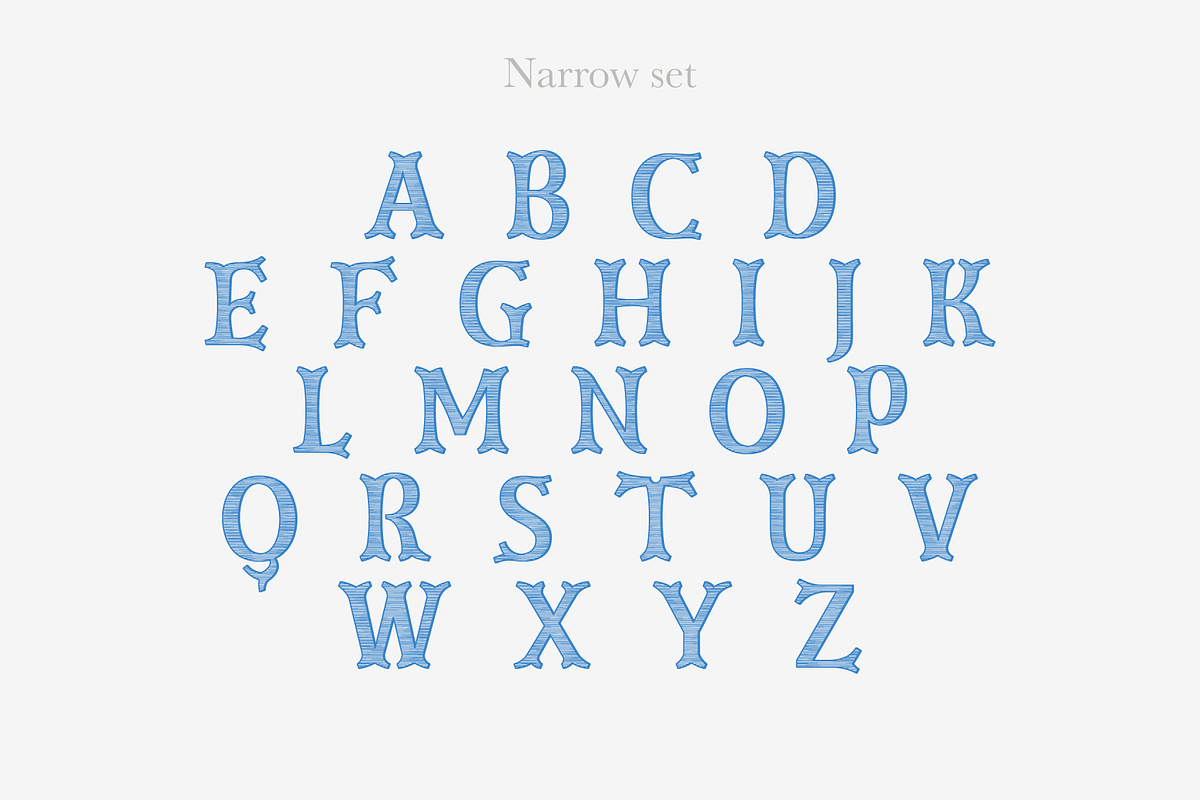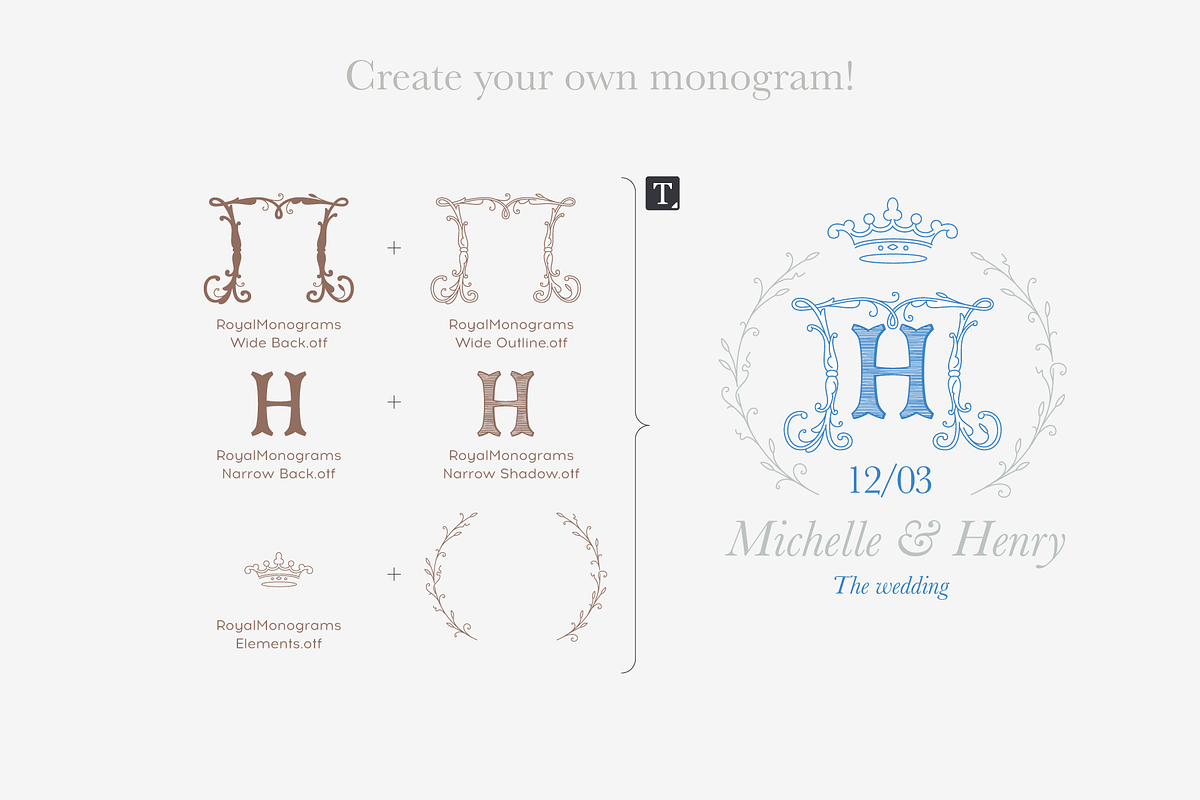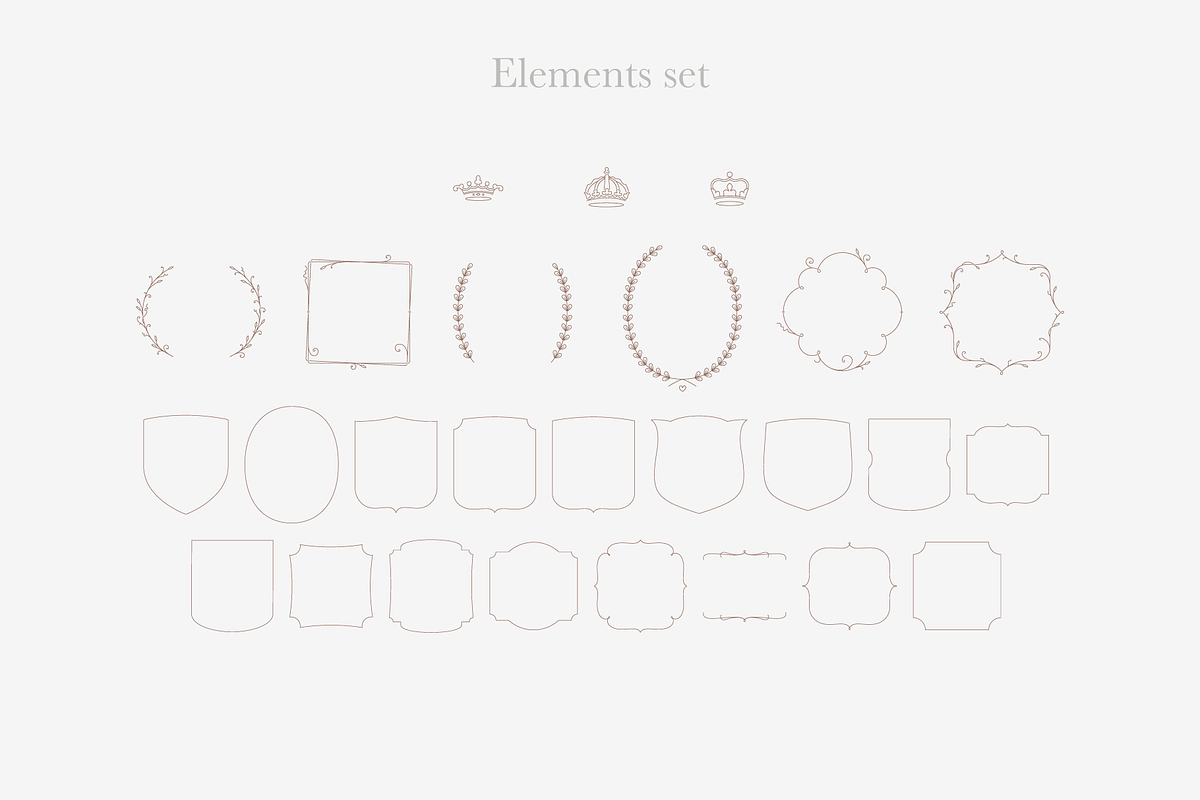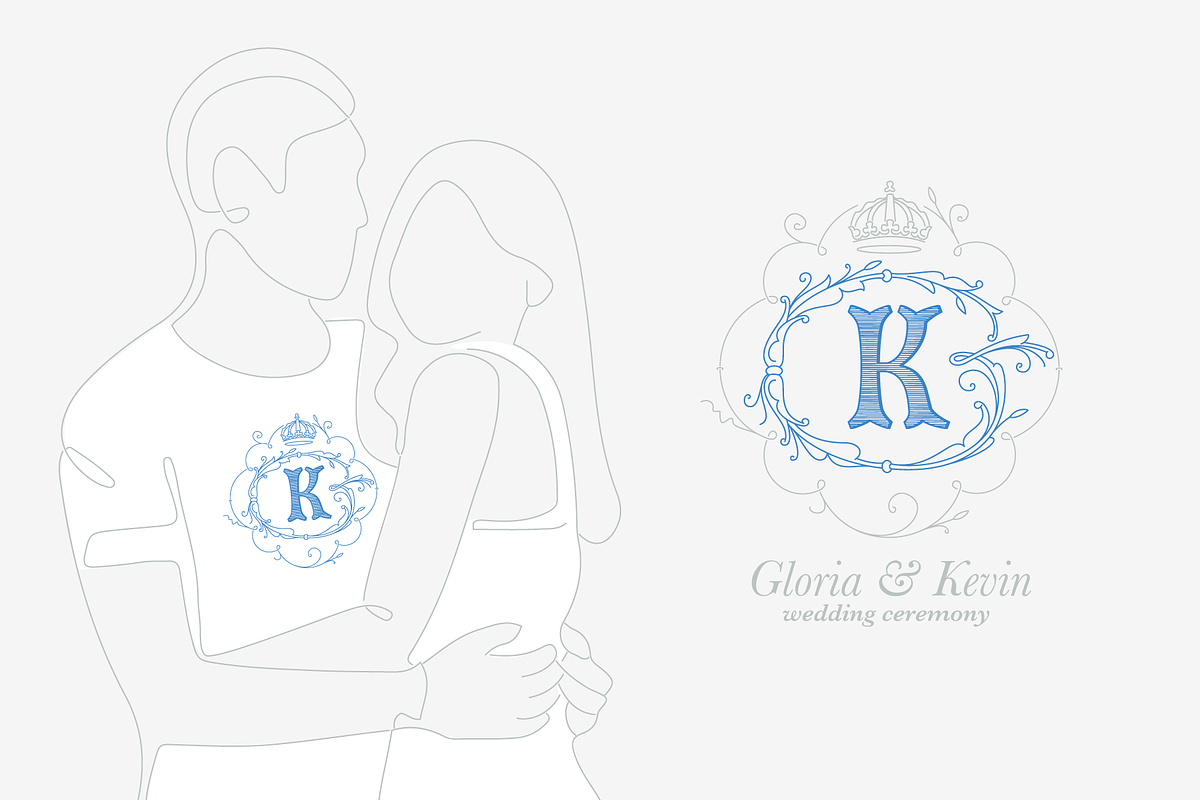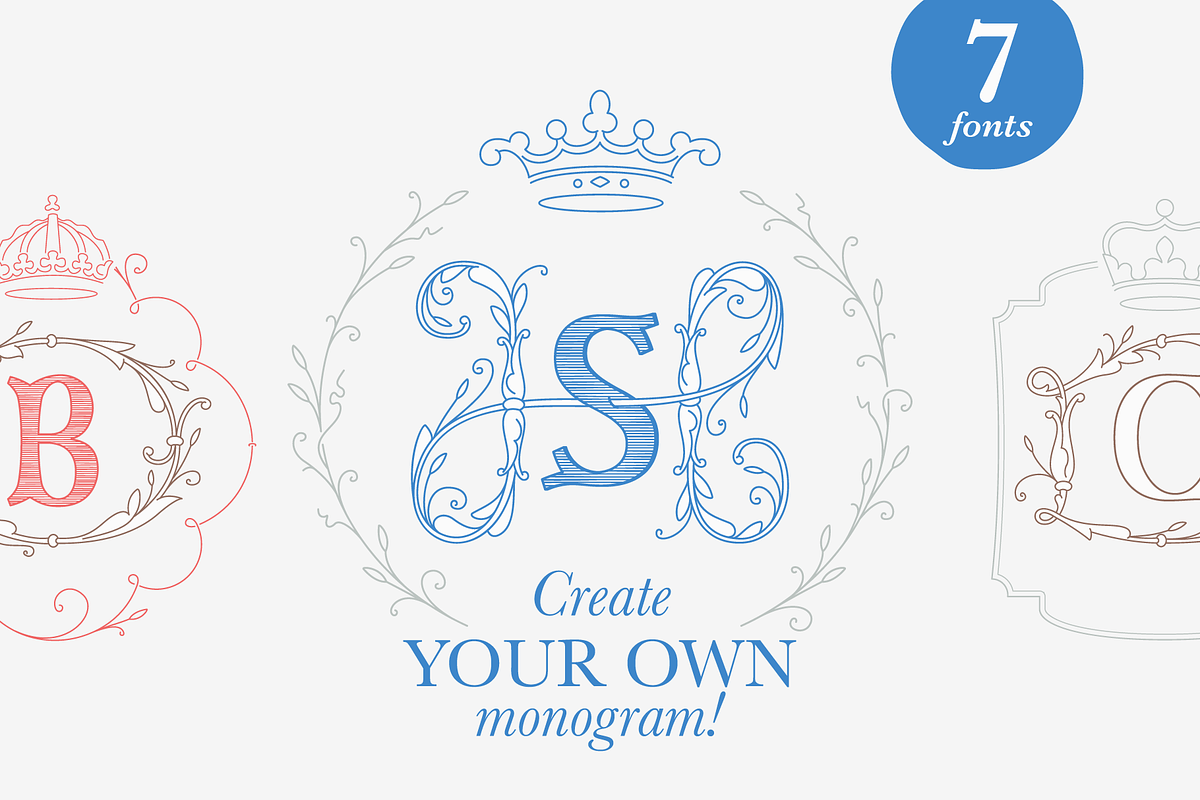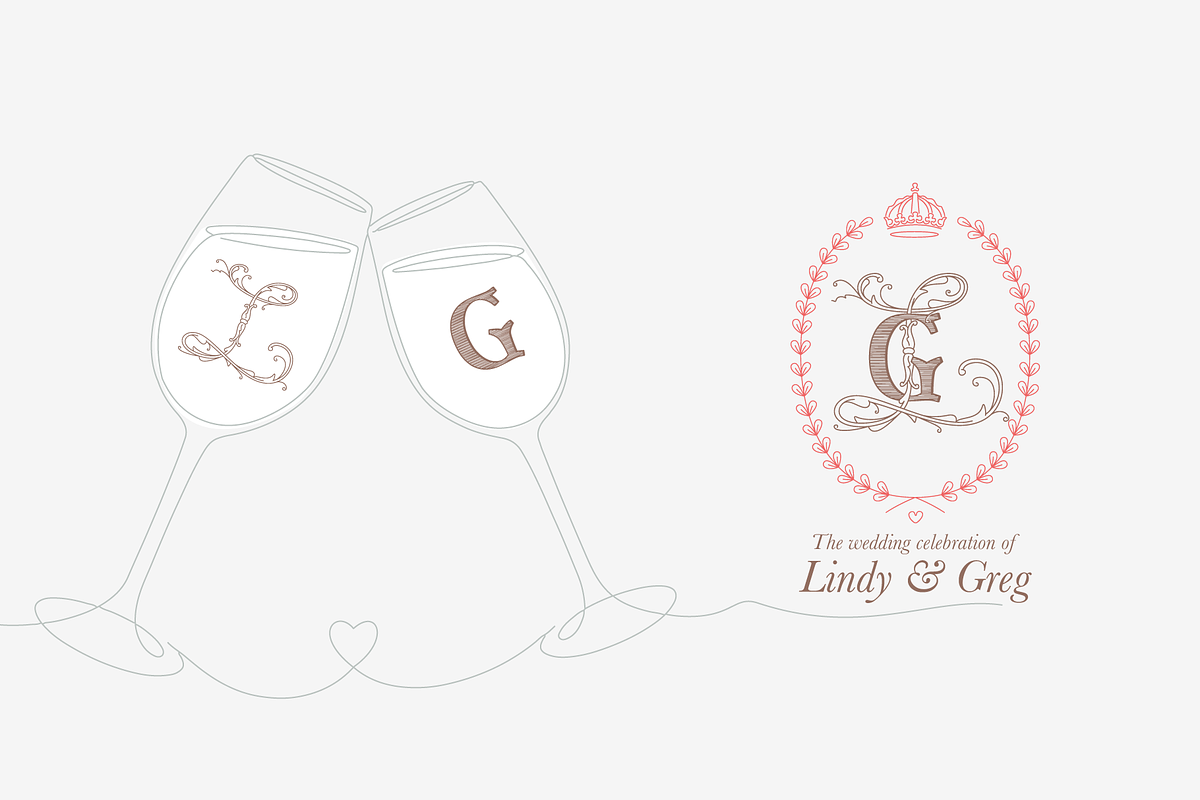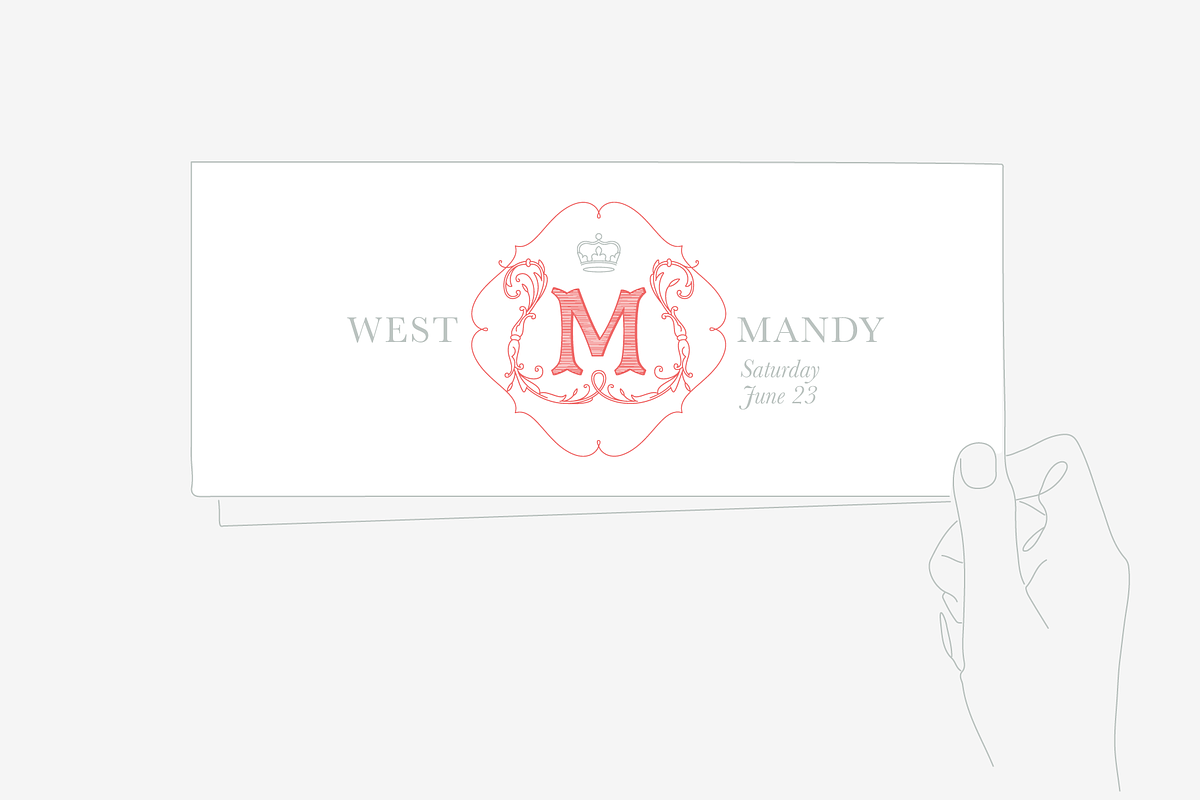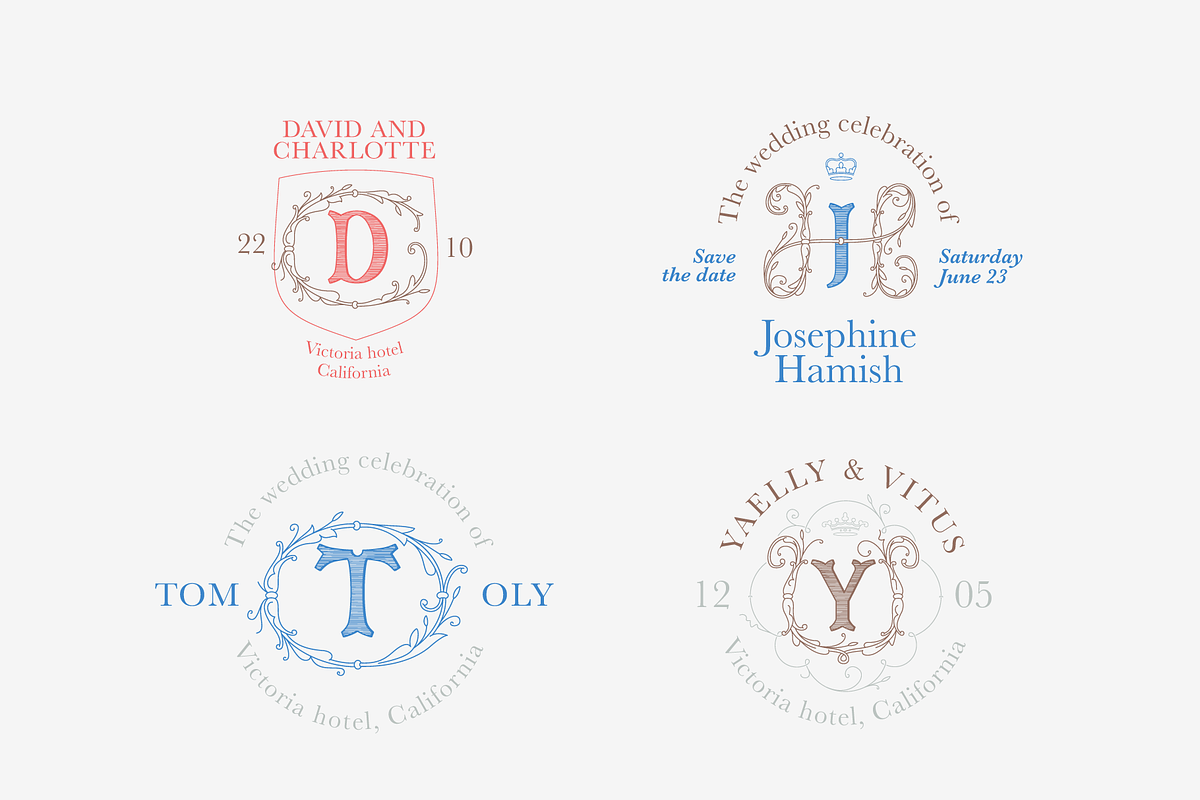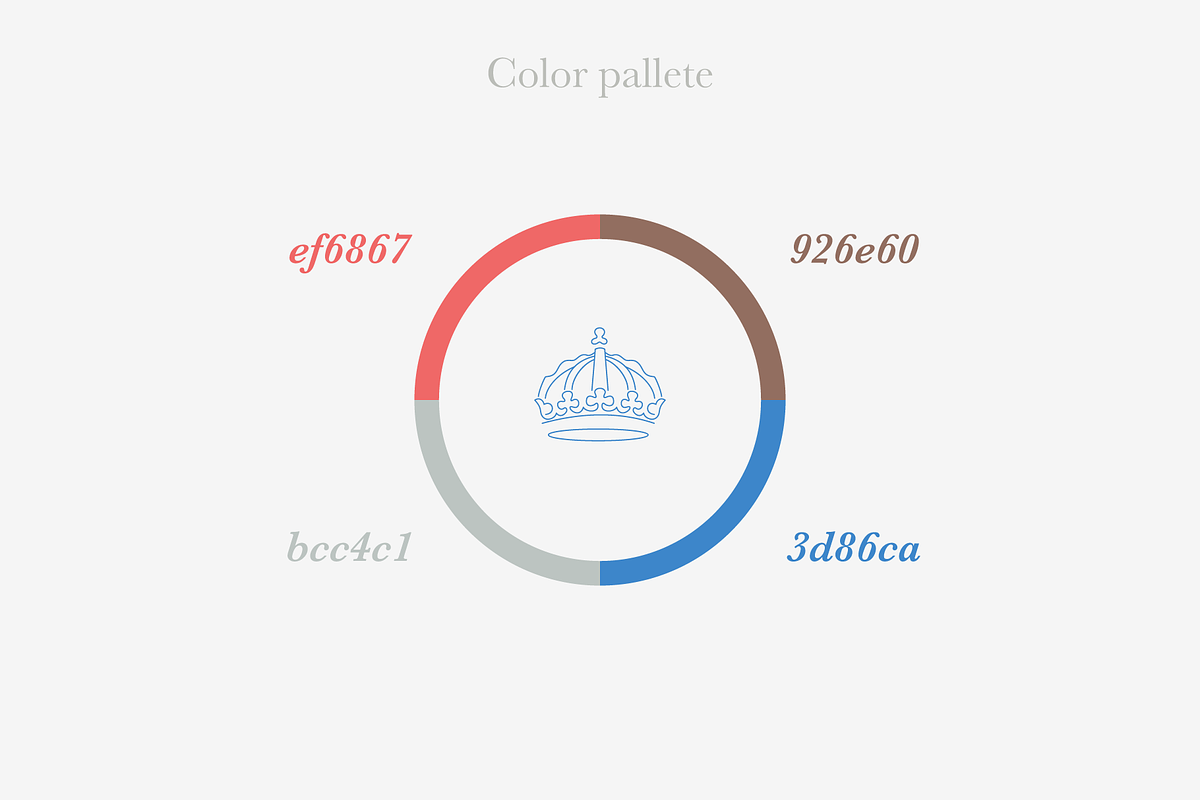
Royal Wedding Monograms font family
Royal Monogram is a family of fonts in an elegant historical style. Perfect for decorating your wedding or family celebration. You can create your own monogram by combining the letters as you wish.
- Wide and Narrow capitals fonts
- Elements set